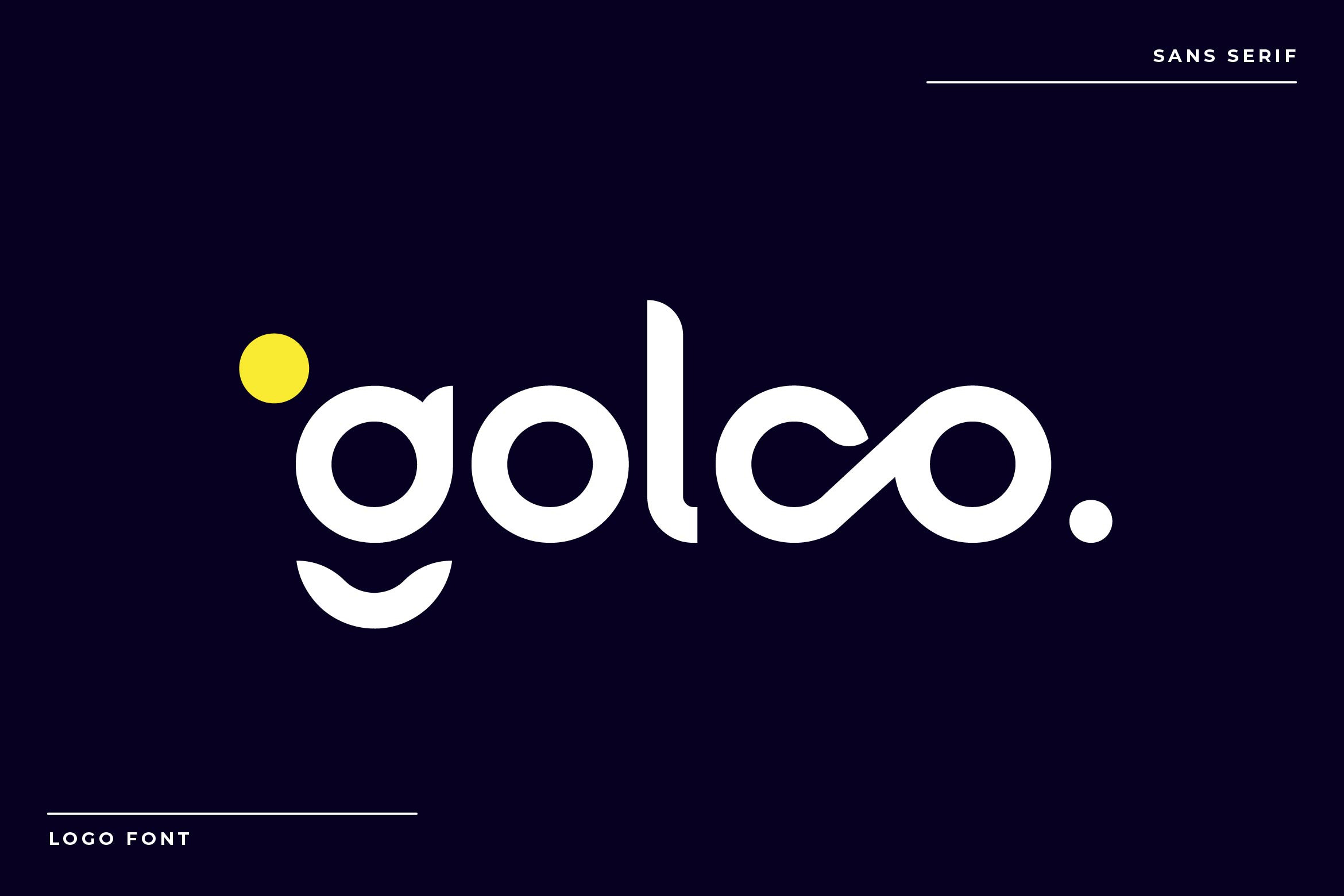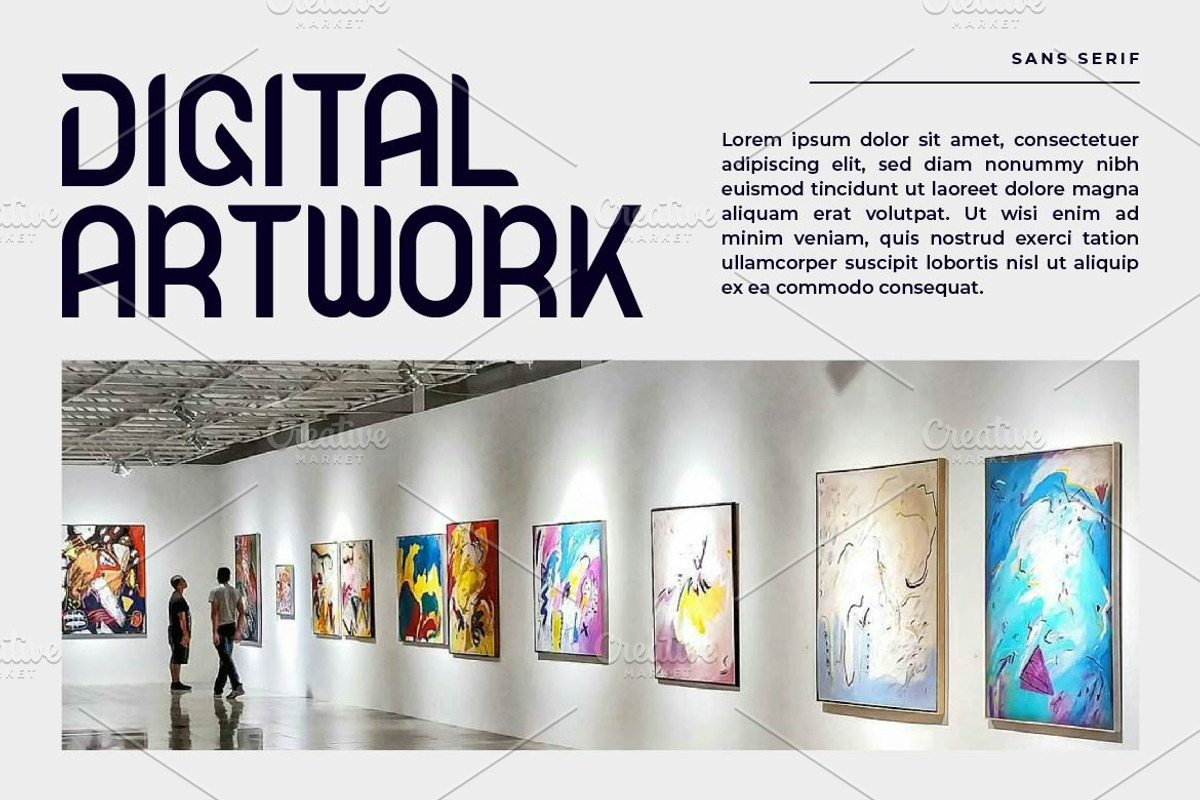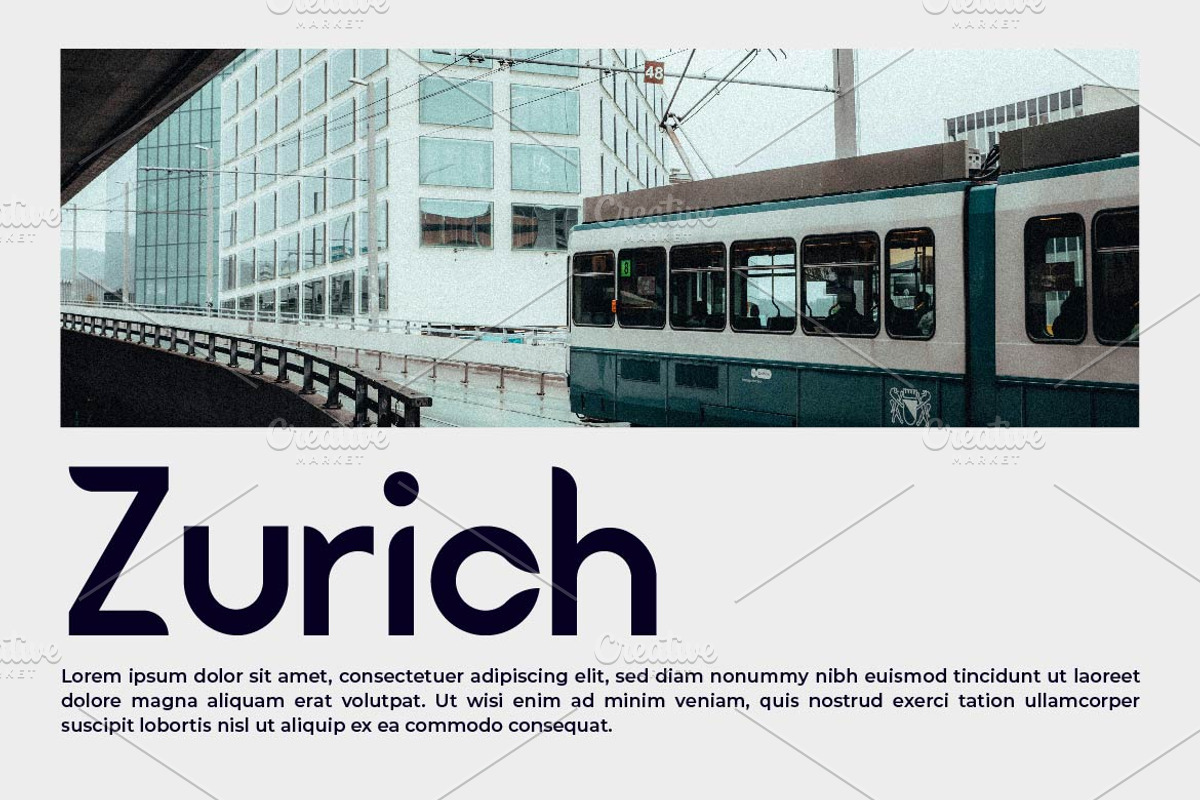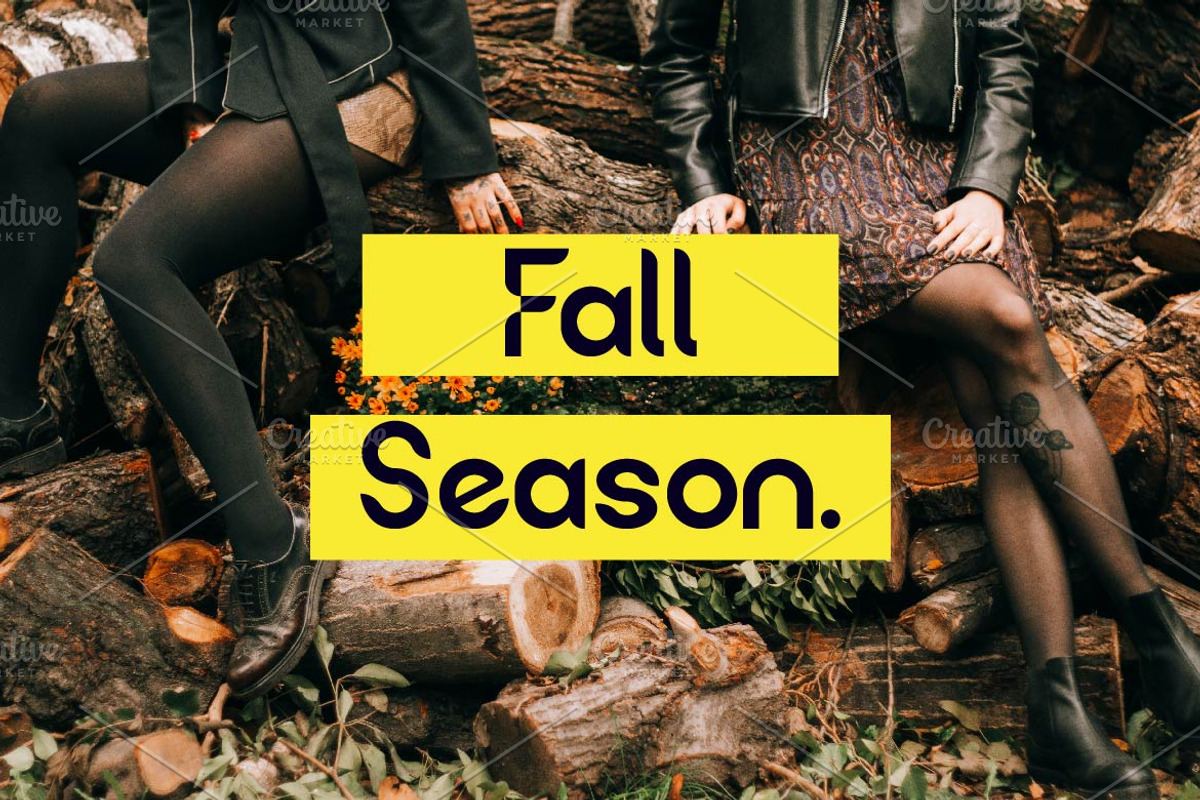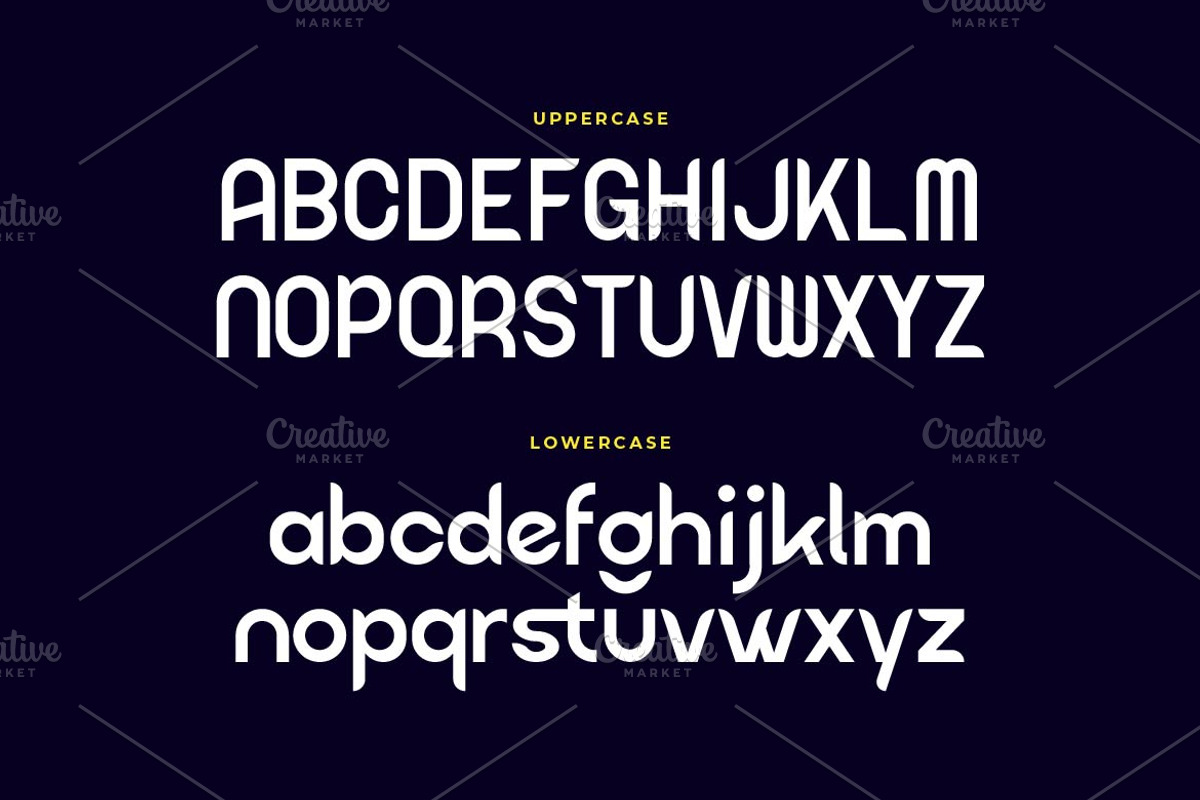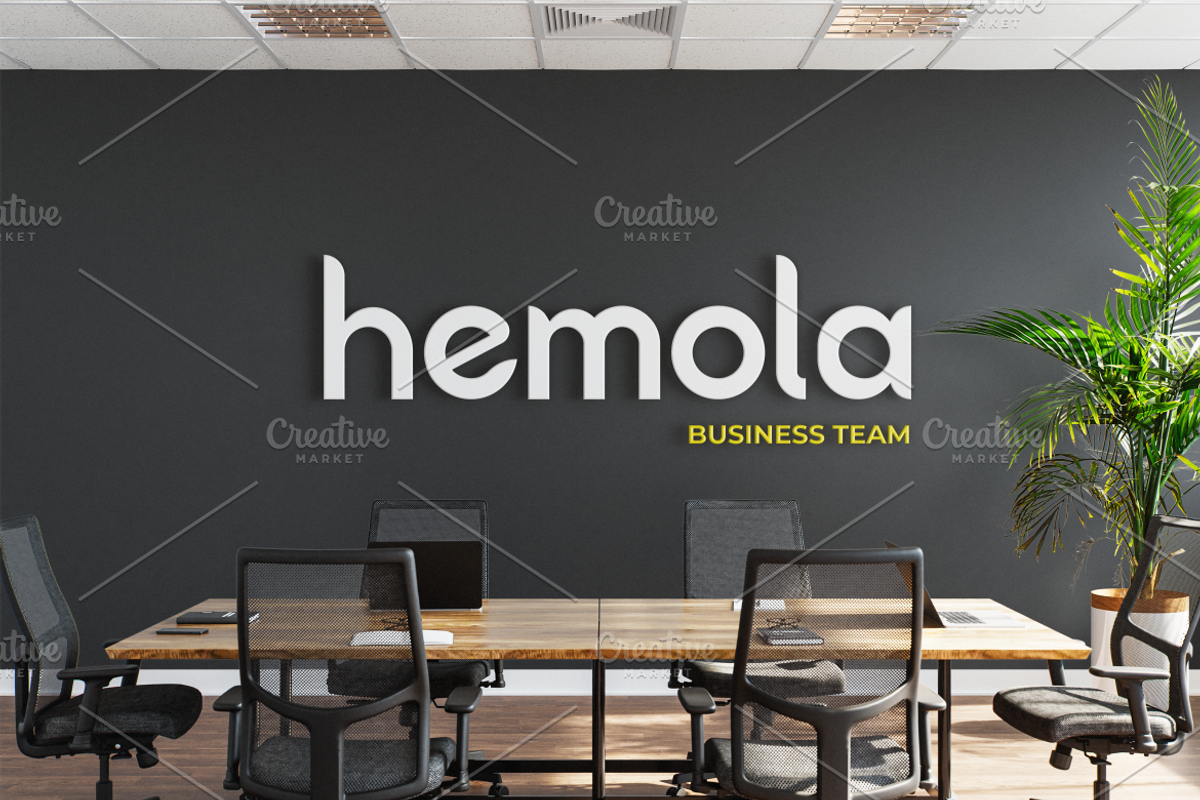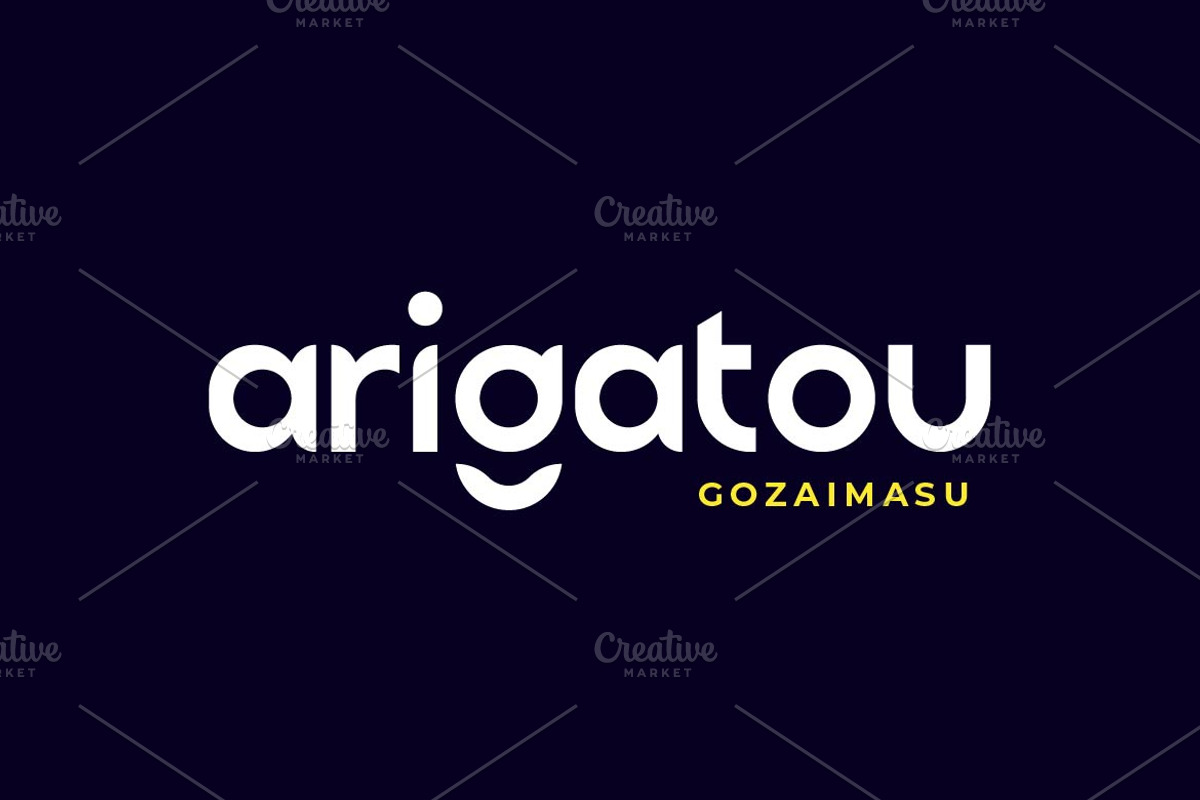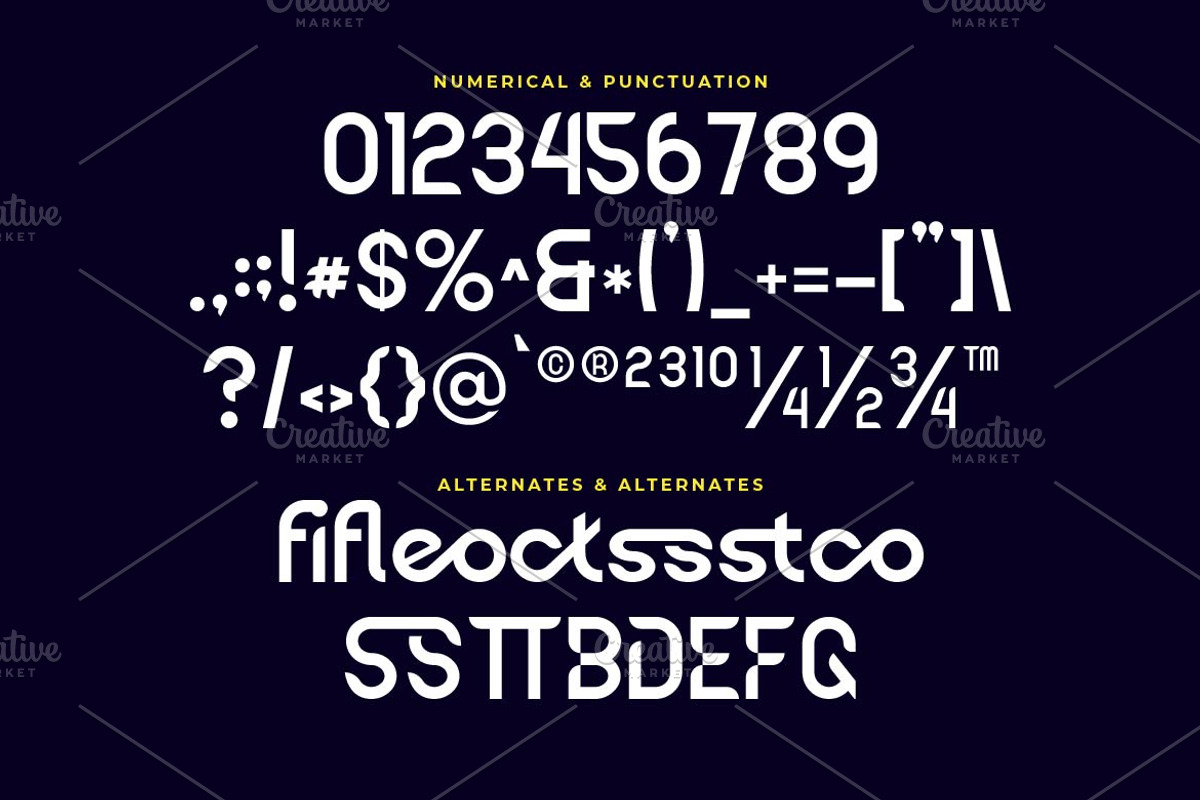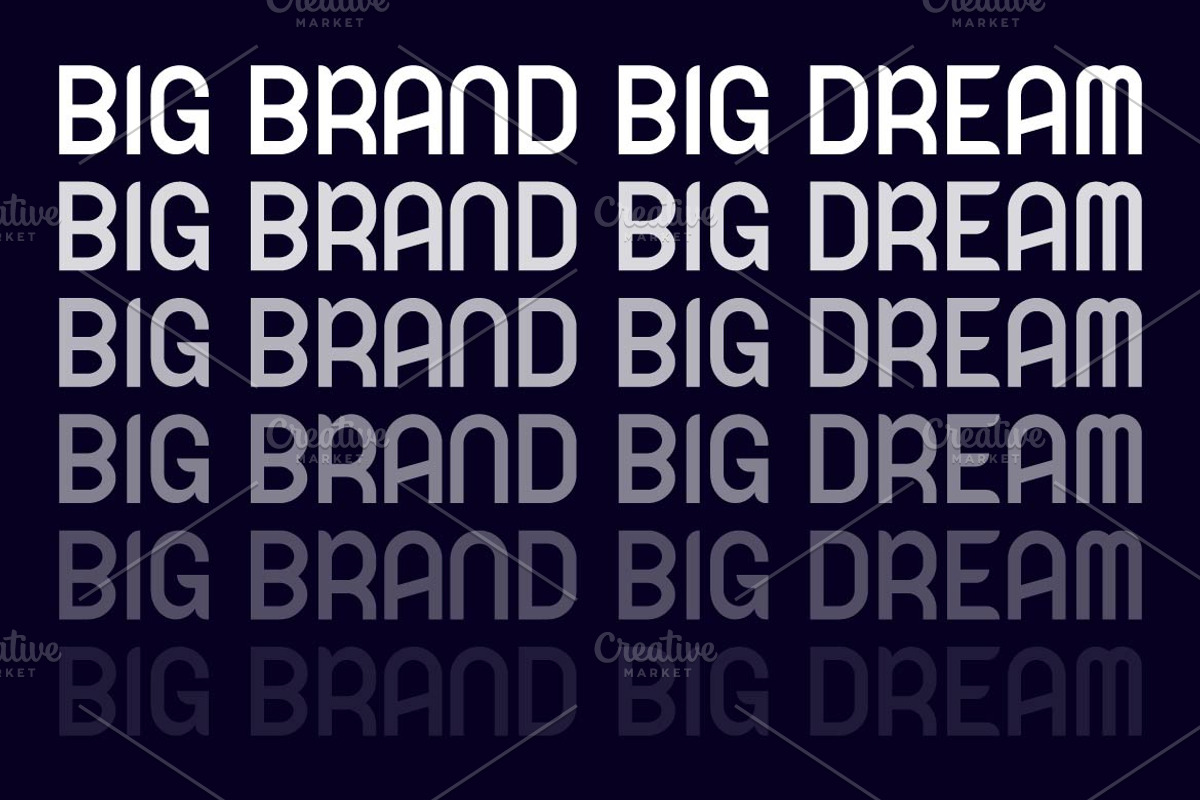
Golco Sans Logo Font
Golco is a bold sans serif logo font by Iwan Alwan, designed with clean, geometric letterforms that emphasize modernity and versatility. Perfect for logos, branding, packaging, and headlines, Golco exudes a strong, professional presence while remaining stylish and adaptable. With multilingual support, ligatures, and alternates, Golco is ideal for designs that demand a striking, contemporary look, making it a perfect choice for creating memorable brand identities.